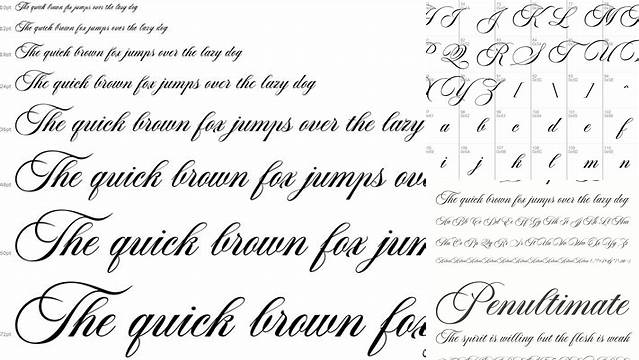
Introduction to Aston Script Bold Font
Hey guys! Are you on the lookout for a font that perfectly blends elegance with a touch of boldness? Look no further! Aston Script Bold font is your answer. This font is not just a typeface; it’s a statement. It's that perfect touch you need to elevate your design projects, whether you're working on branding, invitations, or even just jazzing up your social media posts. The Aston Script Bold font is a modern calligraphy typeface that exudes sophistication and personality. Its flowing lines and strong presence make it an excellent choice for projects that demand attention and a personal touch. It’s designed to be versatile, working beautifully in both digital and print mediums. Think about it – how often do you come across a font that feels both contemporary and timeless? This is it! Its unique character makes your content stand out, ensuring your message is conveyed with style and impact. Aston Script Bold font is more than just a font; it’s an artistic tool that can transform your creative ideas into stunning visual realities. With its distinctive curves and bold strokes, it brings a touch of class and modernity to any design, making it a go-to choice for designers and creatives alike.
Why Choose Aston Script Bold?
Let's dive into why Aston Script Bold font should be your go-to choice. Imagine you’re crafting a wedding invitation. You need something that screams elegance but also feels personal and inviting, right? This font does exactly that! Or maybe you're designing a logo for a high-end brand. You need a font that exudes sophistication and commands attention. Again, Aston Script Bold font fits the bill.
The versatility of Aston Script Bold font is one of its greatest strengths. It’s not just for formal occasions; it works equally well for everyday projects. Think about creating eye-catching social media graphics or designing a blog header that grabs your audience’s attention. This font adds that extra oomph, making your content look polished and professional. Plus, the bold weight ensures legibility, which is crucial for any design. You don’t want a beautiful font that’s hard to read, do you? The bold nature of Aston Script Bold font ensures that your text stands out, whether it’s on a screen or printed on paper. Another reason to love Aston Script Bold font is its unique character. It's not just another script font; it has a distinct personality that shines through. This personality adds a layer of depth and emotion to your designs, making them more engaging and memorable. When you use Aston Script Bold font, you’re not just choosing a font; you’re choosing a style. You’re choosing to communicate your message with flair and confidence. This font has been carefully crafted to balance aesthetic appeal with practical usability, making it a valuable asset for any designer.
Key Features of Aston Script Bold Font
So, what makes Aston Script Bold font stand out from the crowd? Let’s break down the key features. First off, it’s the bold weight. This isn’t your delicate, whisper-thin script. It’s got presence, making it perfect for headlines, titles, and anything else you want to pop. The boldness ensures that the text is easily readable, even from a distance. This is crucial for things like posters, banners, and signage where visibility is key. Beyond its boldness, Aston Script Bold font boasts beautifully flowing lines. The curves and loops are smooth and elegant, giving it a touch of sophistication. It’s like the font is dancing across the page, adding a sense of movement and energy to your designs. This fluidity makes the font feel more organic and natural, which is especially important for projects where you want to convey a sense of authenticity and warmth. Furthermore, Aston Script Bold font often includes a full set of uppercase and lowercase letters, numbers, and punctuation marks. This means you have everything you need to create complete and professional designs. Some versions even come with additional glyphs and ligatures, giving you even more creative options. These extra characters can add a unique flair to your typography, allowing you to customize your designs in ways that truly reflect your personal style.